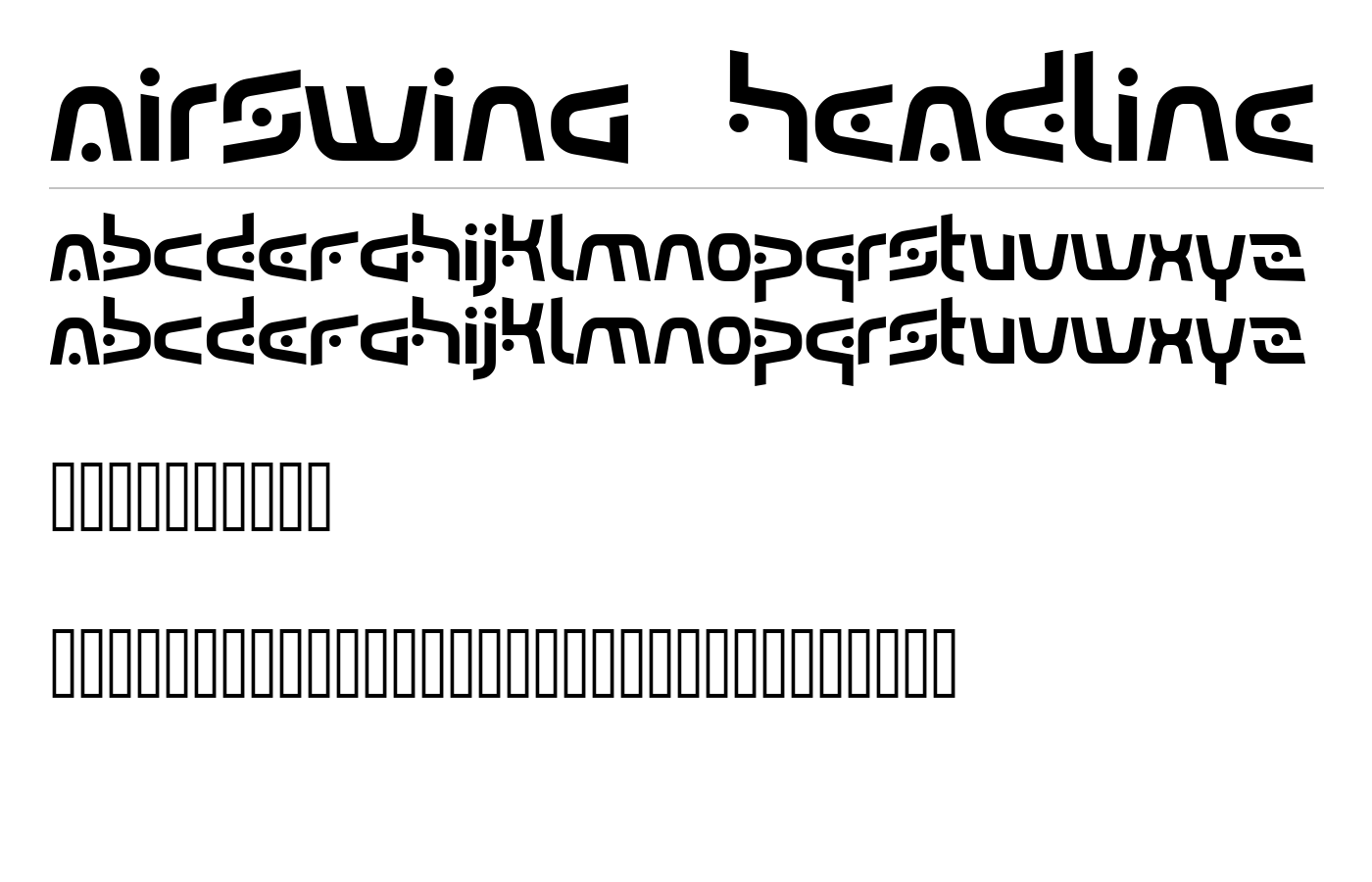
Airswing Headline is a bold, futuristic sans serif font with a unique geometric style and a slightly condensed width. Its high x-height and distinctive letter shapes featuring sharp angles and circular dots give it a dynamic, tech-inspired personality, making it ideal for eye-catching headlines, modern branding, and creative design projects that seek a cutting-edge, playful vibe. This font excels at grabbing attention and adding a contemporary flair to logos, posters, and digital media.
Airswing Headline Font